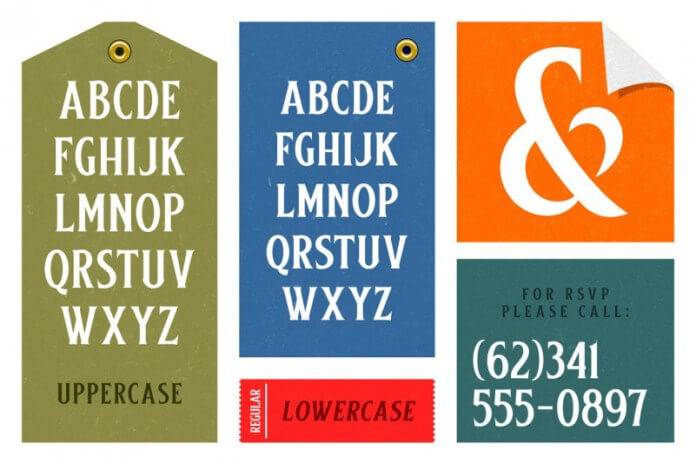
Baisteach Vintage Serif Font
The Baisteach Font is here to greet you! This creative geometric typeface was produced in accordance with current trends and is ideal for minimalistic modern designs. Twicolabs Foundation created and shared it. Baisteach Vintage Serif Font was inspired by the font of the early 1900s, which was commonly employed in sign paintings, package labels, and advertisements. Last but not least, don’t forget to enable the OpenType feature to expand the number of letter possibilities available. Standard letters, digits, and punctuations are only a few of the font’s wonderful characteristics (OpenType Standard encoding). Multilingual characters such as Afrikaans, Albanian, Catalan, Croatian, Czech, Danish, Dutch, English, and others are included in the typeface.
Sharp serifs, clear lines, and a strong form give this design a simple yet impactful impression. The font is ideal for headlines, logos/logotypes, and a variety of other uses. If you like traditional typography, you’ll want to include this font in your creative toolkit.